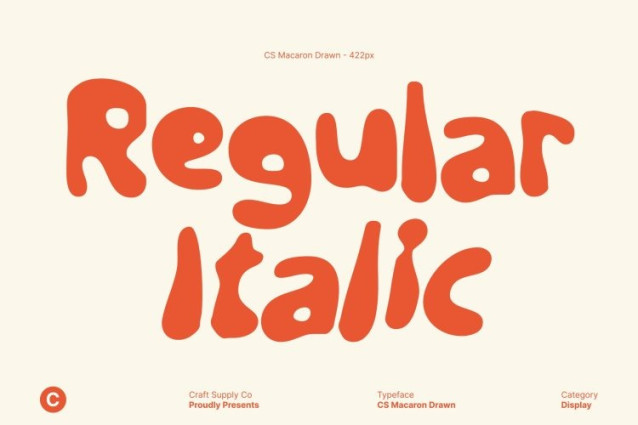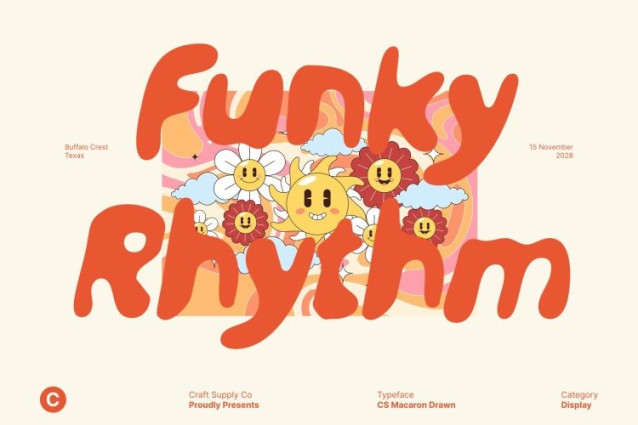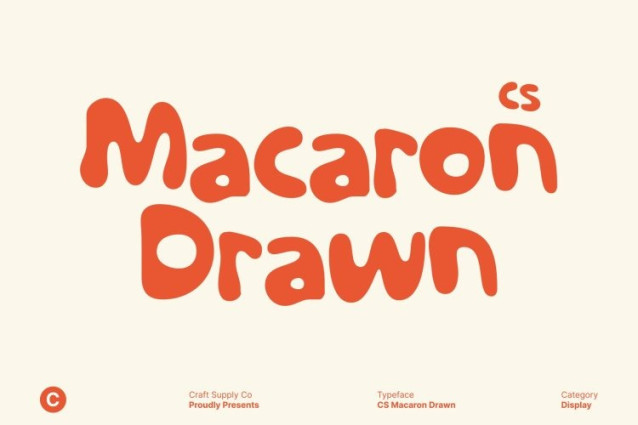
CS Macaron Font
CS Macaron Font Playful and energetic, this etchy display font set features bold strokes with bubble-like forms and friendly shapes that instantly attract attention. Its rounded proportions and expressive construction create a cheerful, youthful mood, making every word feel lively, fun, and approachable. The font naturally communicates joy and creativity through its soft yet confident presence.
Drawn Effect for Natural, Artistic Shape
The drawn effect gives the font a natural, organic shape with subtle imperfections that enhance its artistic appeal. This handcrafted texture softens the bold bubble strokes, making the typography feel relaxed, expressive, and human. Each character looks naturally formed, adding warmth and personality to the overall design.
Perfect for Youth Branding and Casual Creativity
Ideal for youth branding, greeting cards, playful packaging, posters, stickers, and casual creative projects, this font adapts effortlessly across print and digital formats. Its bold structure ensures strong readability, while its artistic texture keeps designs engaging and friendly.
Joyful, Artistic, and Naturally Expressive
By blending bold bubble-style letterforms with a natural drawn texture, this font delivers a perfect balance of strength and softness. It’s an excellent choice for designers seeking an energetic, artistic, and approachable display font that brings charm, creativity, and playful expression to every design.